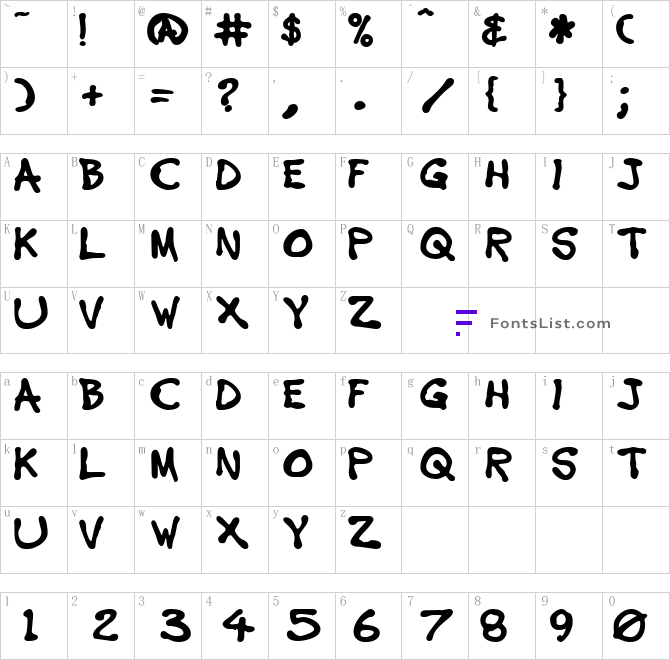
- Font Name:ArcadeAmerica
ArcadeAmerica.ttf is a very beautiful artistic font, ArcadeAmerica.ttf is widely used in the design and printing of various books and pictures,ArcadeAmerica.ttf has a strong visual impact,ArcadeAmerica.ttf is a commonly used font in newspapers, magazines and books, and is used in posters, e-commerce Poster design, store design, logo design, font design and other fields.ArcadeAmerica.